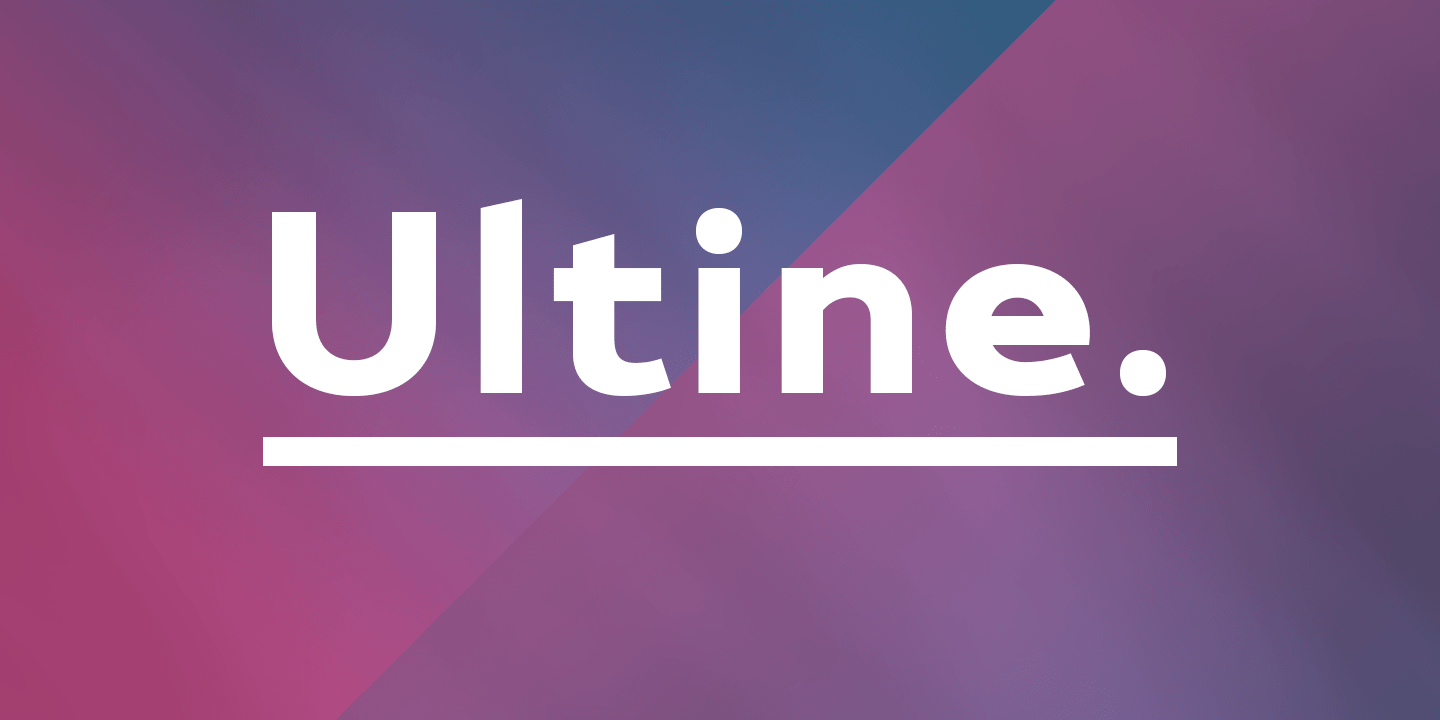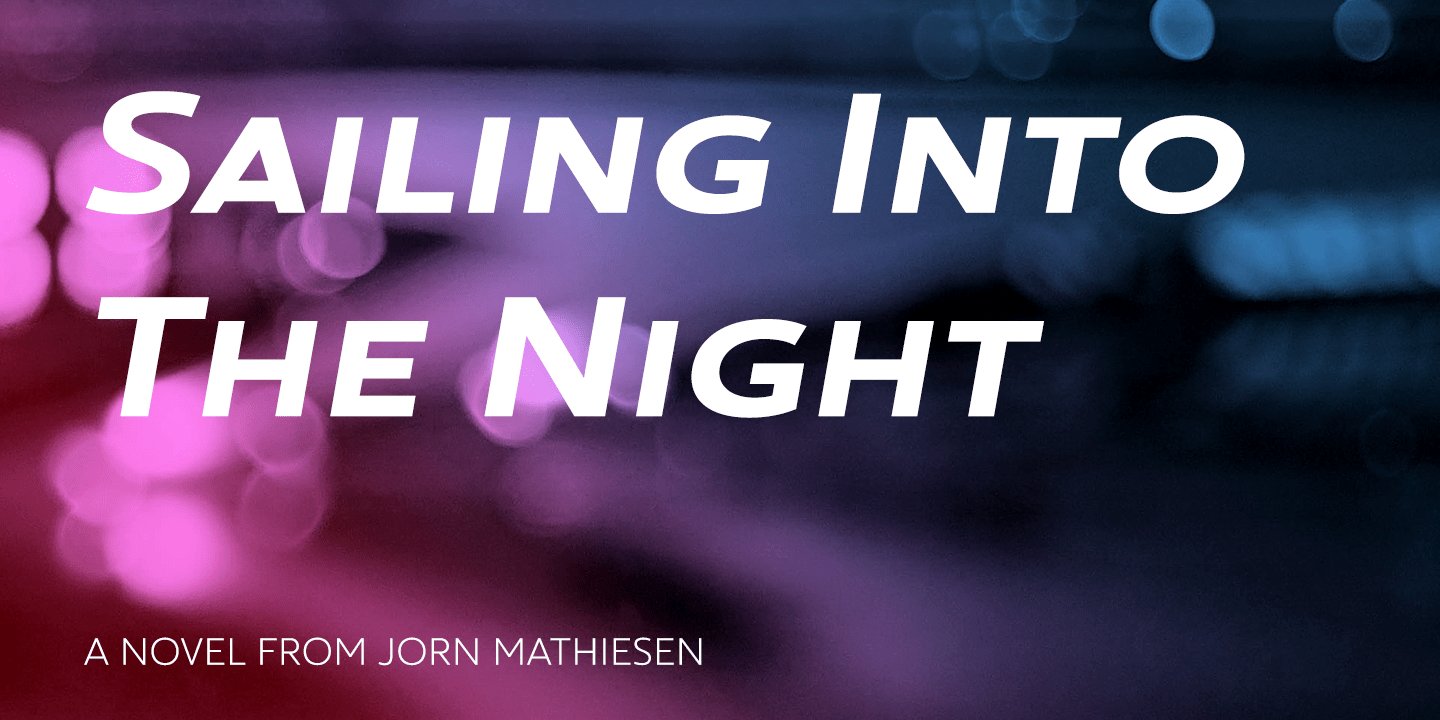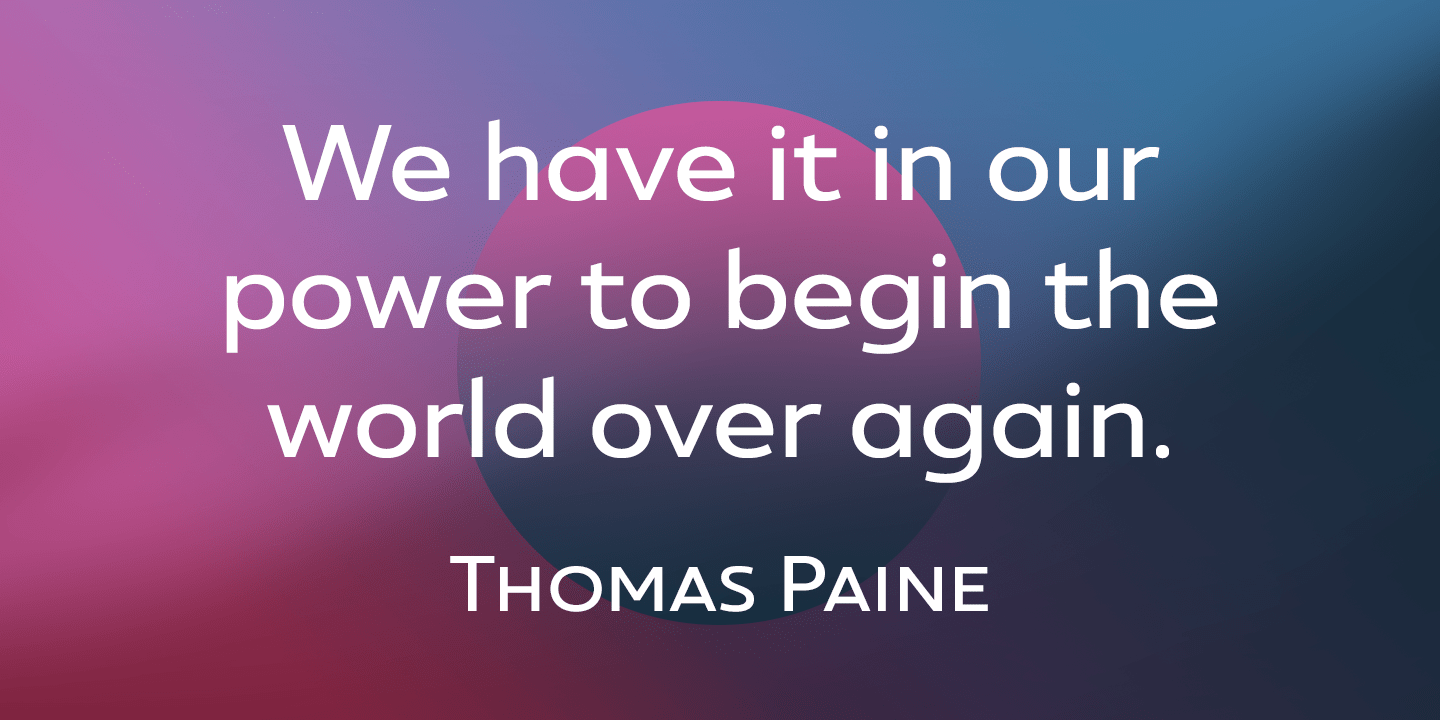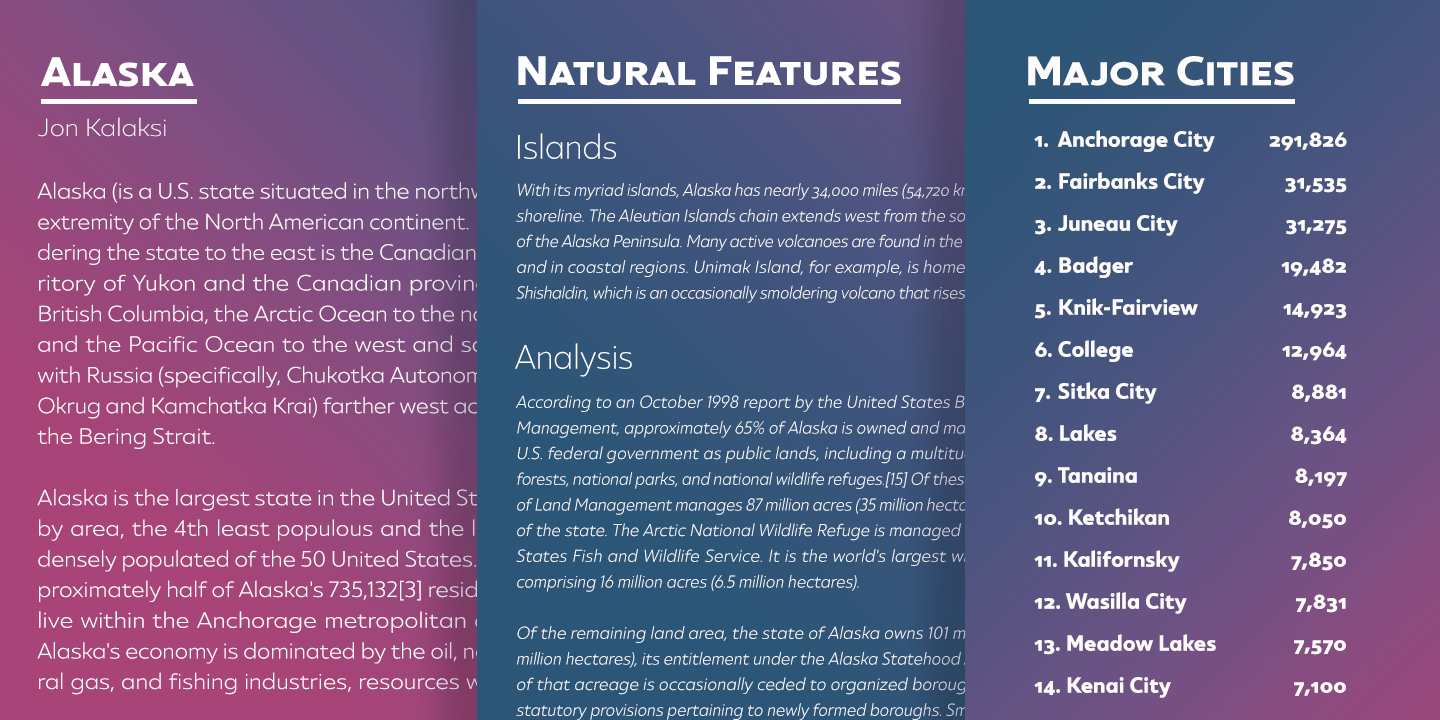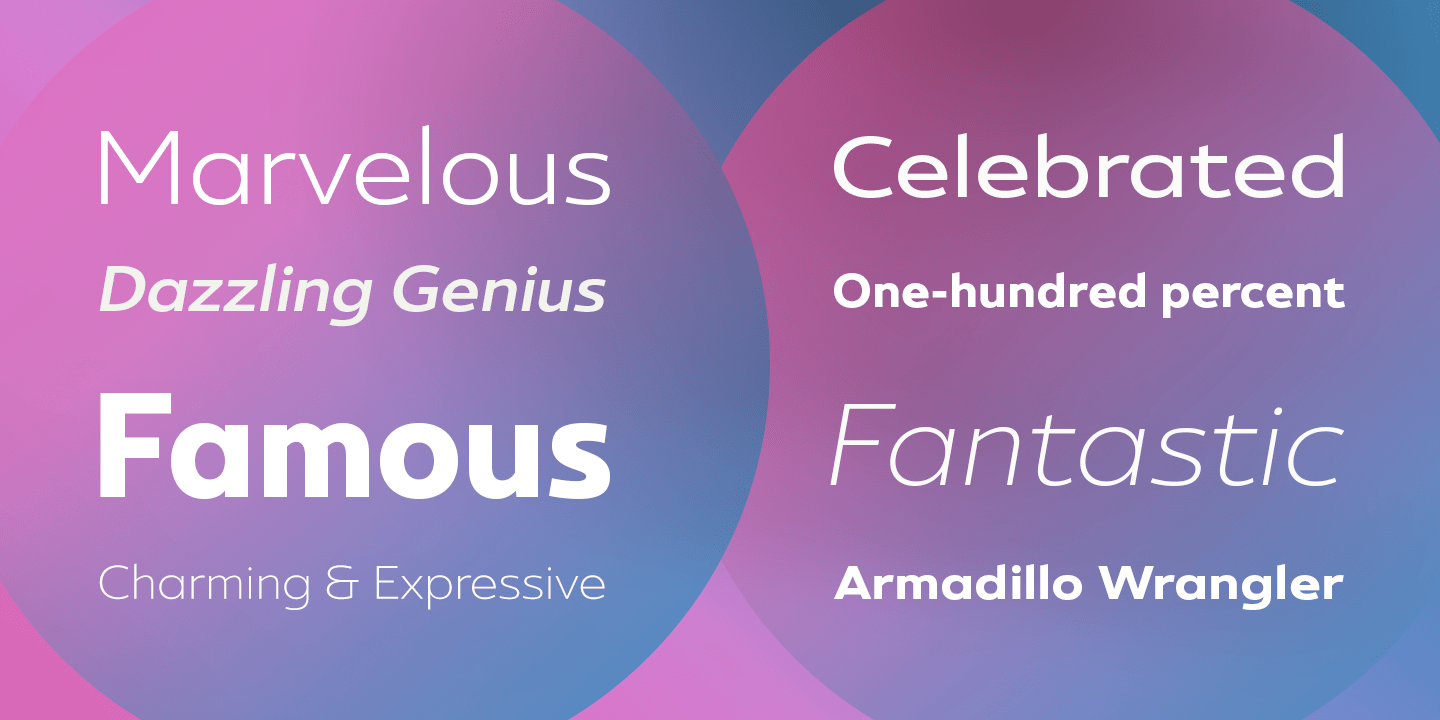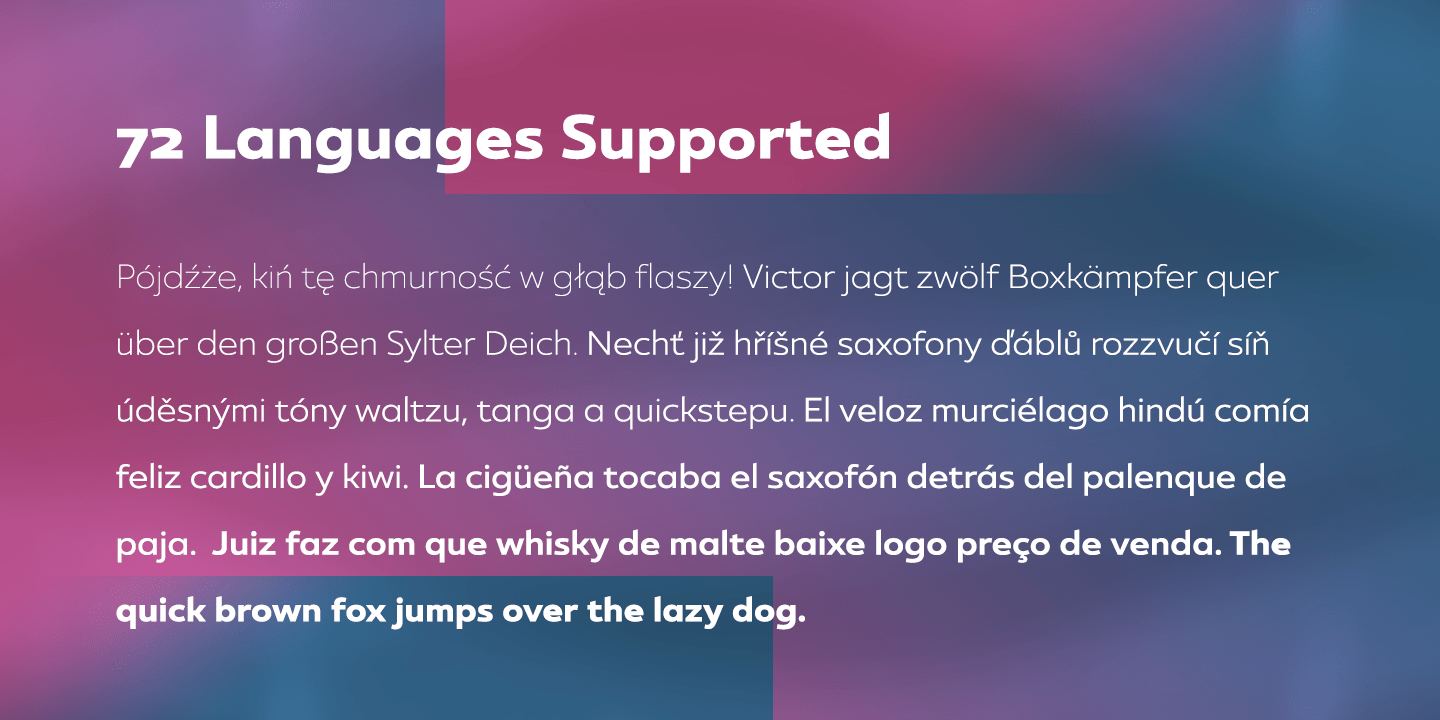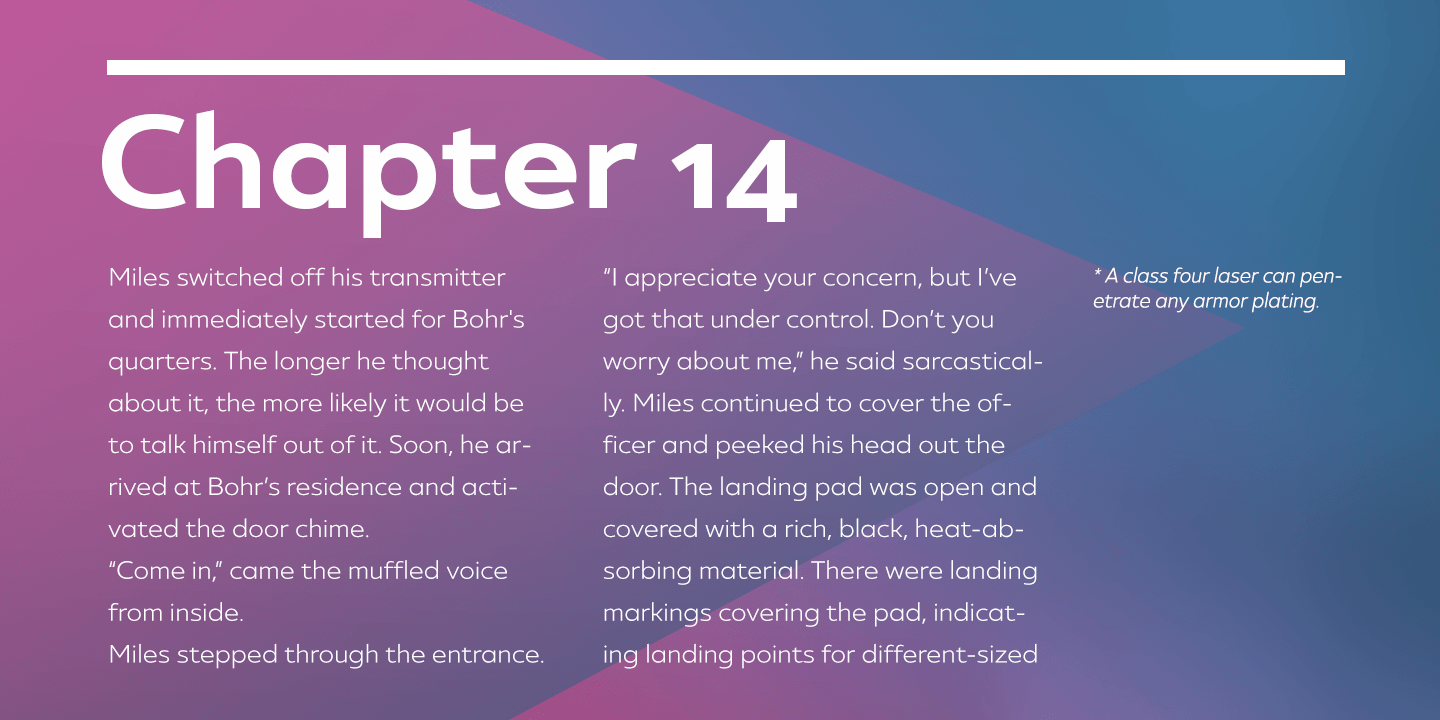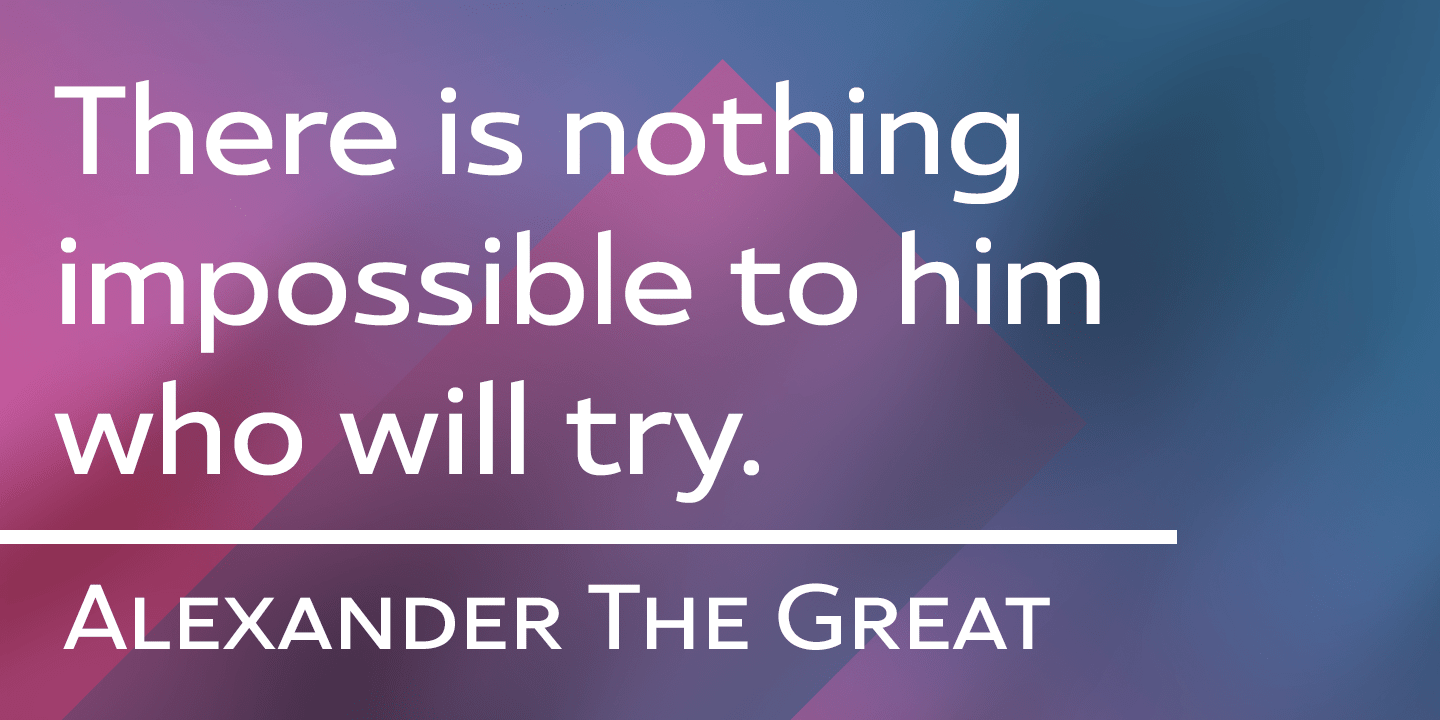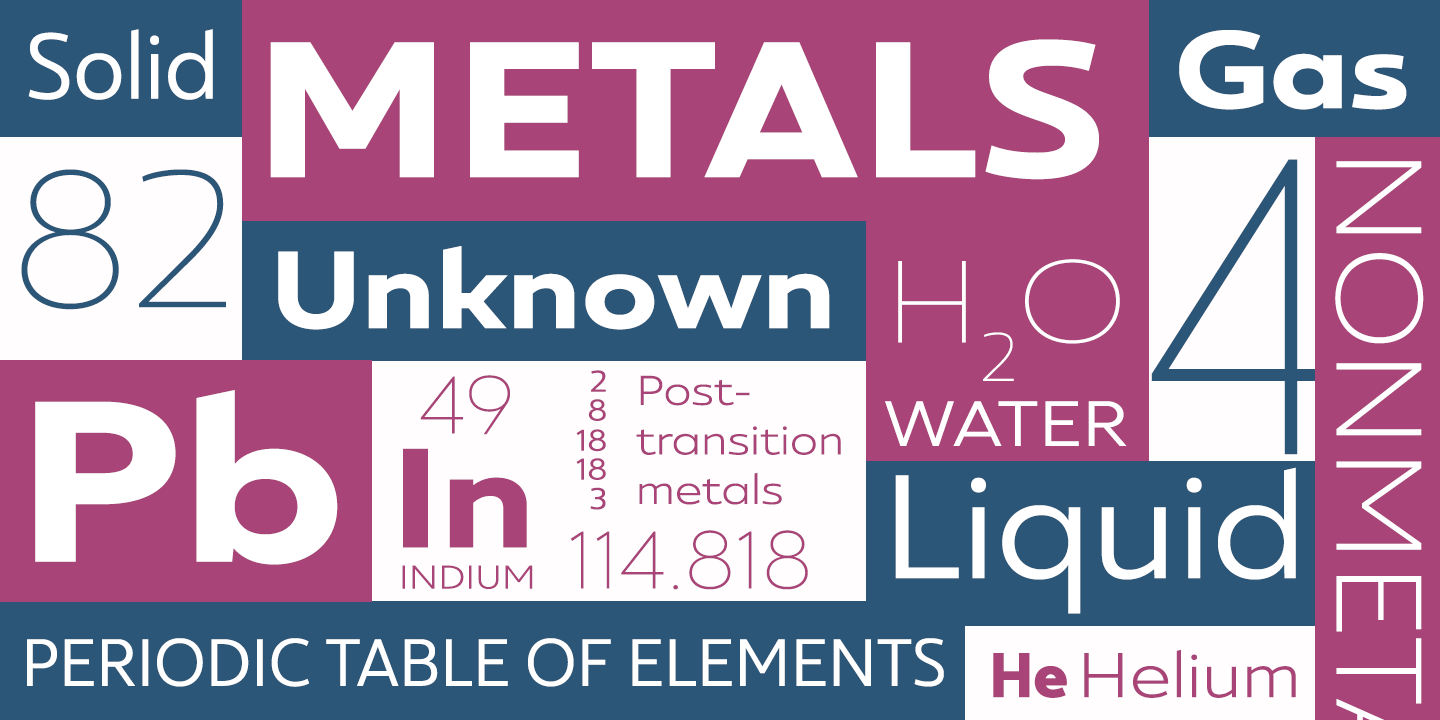
Ultine
Font Family by Insigne
No frills. No fluff. Still friendly. Keep your look clean and simple with the utilitarian but gentle Ultine. This font with a slightly extended geometric architecture gets straight to the point without pushing your reader away with too firm an approach.
Ultine covers a large set of multi-Latin languages. It includes a wide range of other OpenType features, too, including ligatures and contextual alternates. Moreover, small caps of Utline and titling alternates are available for deepening your design capabilities with this basic face.
The Ultine family consists of 42 fonts with three different widths and italics counterparts for every style. The design is well suited for graphic design and any use of the screen. It can easily operate as a webfont, as text for banner ads and for branding as well as editorial design. And just to show you how simple and friendly the font can be, the regular weight is free, so you can use it to your heart's content.